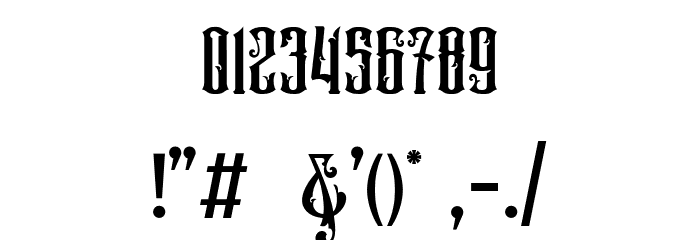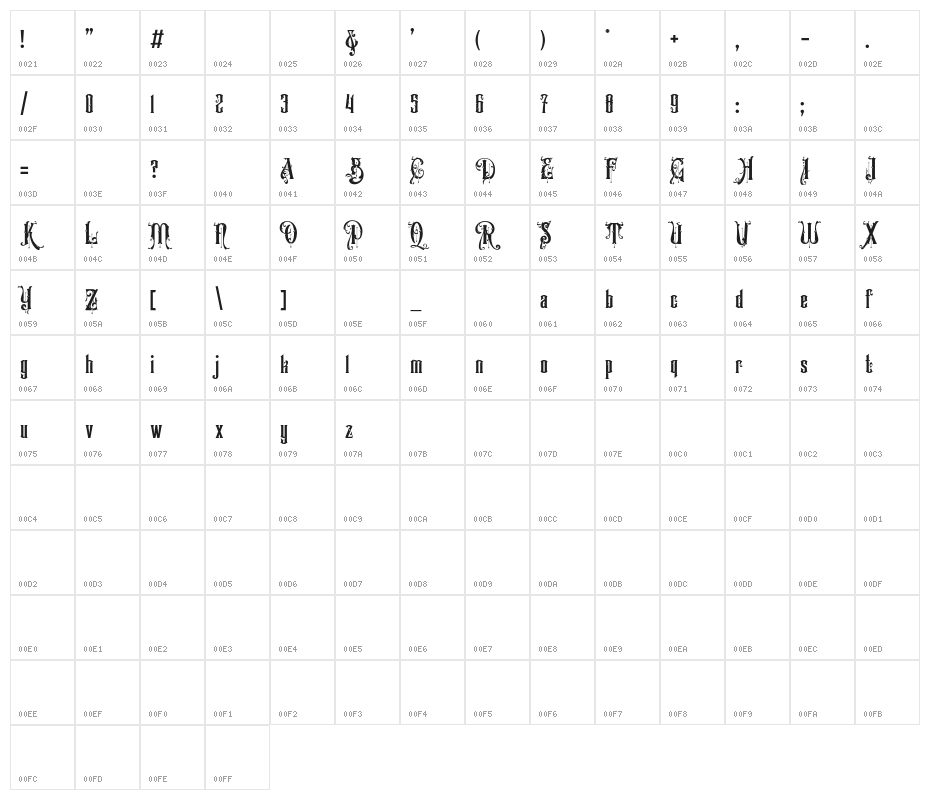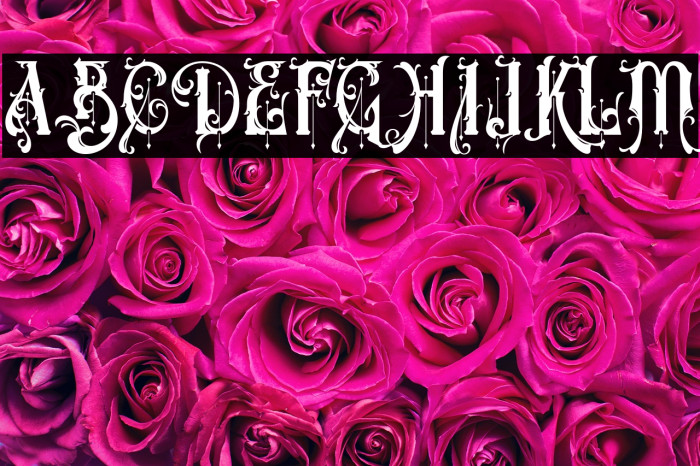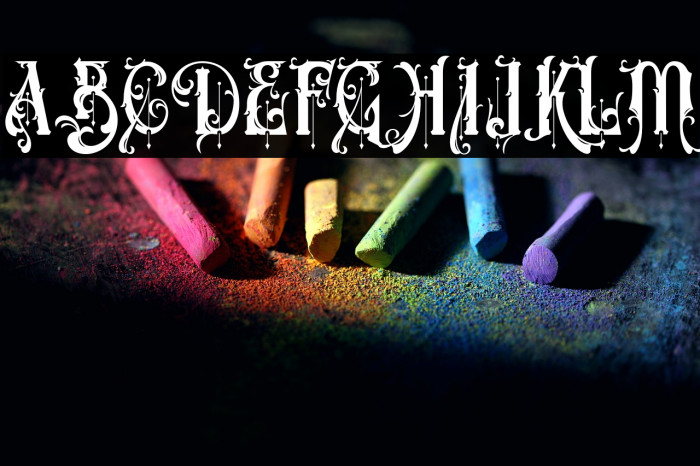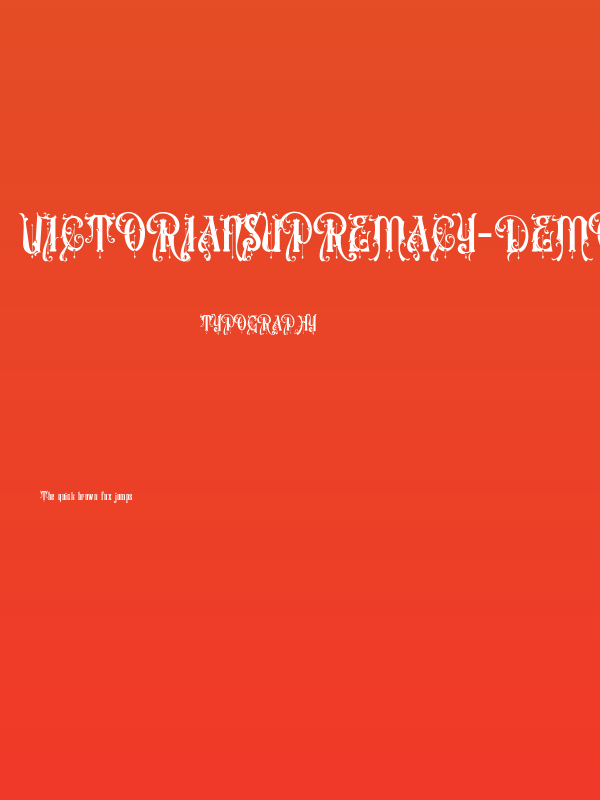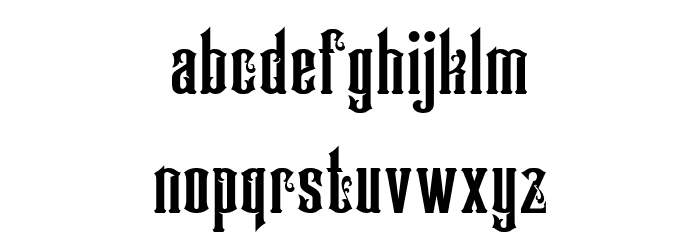
VictorianSupremacy-Demo Font
VictorianSupremacy-Demo Description
This font exudes a distinct Victorian flair, characterized by its ornate and decorative elements. The uppercase letters are embellished with intricate flourishes and swashes, giving them a regal and elaborate appearance. The lowercase letters maintain a more restrained yet still decorative style, offering a nice contrast to the uppercase. The numerals and special characters follow suit with a consistent level of ornamentation, making the font suitable for projects that require a touch of elegance and historical charm. The overall design is reminiscent of 19th-century typography, making it ideal for vintage-themed designs.